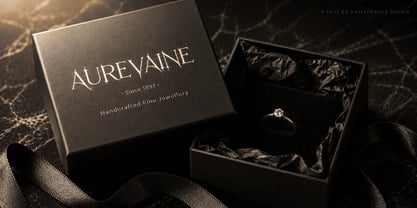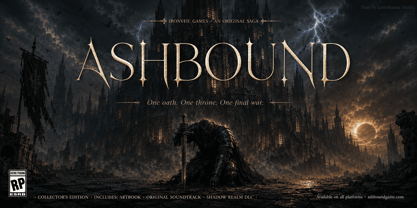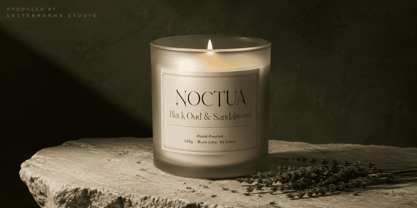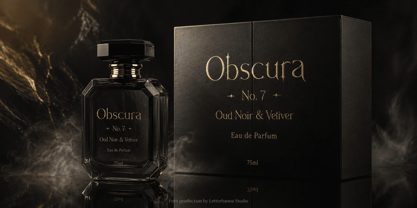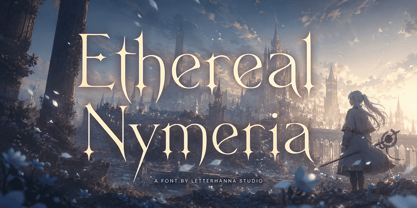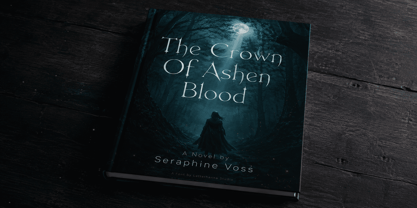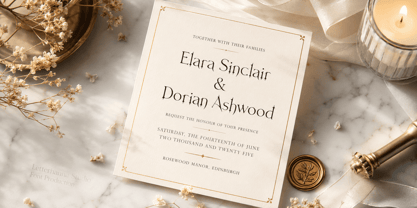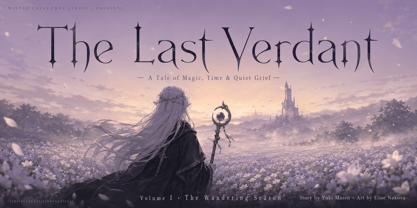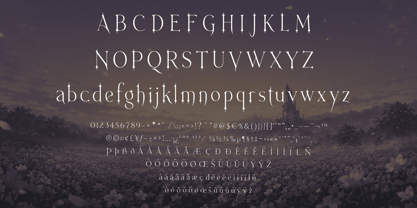
Ethereal Nymeria
by Letterhanna Studio
The Ethereal Nymeria Font Family was designed by Rinaldo Hasibuan and published by Letterhanna Studio. Ethereal Nymeria contains 1 styles. More about this family
What if a font could feel like magic?
Most fonts are functional. A few are beautiful. But every once in a while, a typeface arrives that feels like it was pulled from another world entirely — one where elegance has edges, and beauty carries a quiet danger.
That font is Ethereal Nymeria.
Born from the intersection of gothic architecture and old-world calligraphy, Ethereal Nymeria is a high-contrast serif typeface that refuses to be ordinary. Its razor-thin hairlines flow like silk threads, then erupt into bold, commanding strokes — a visual tension that creates presence the moment it hits the page. Star-burst terminals punctuate each letterform like tiny crowns, making even a single word feel ceremonial.
The name says it all. Ethereal — weightless, otherworldly, impossible to ignore. Nymeria — fierce, wild, unapologetically powerful. Together, they describe a font built for those who want their designs to feel like an event.
Ethereal Nymeria was crafted for brands, designers, and creators who understand that typography is never just letters — it's atmosphere. It's the first impression before a single word is read. Whether you're designing a luxury wedding suite, a high-end editorial layout, a fantasy book cover, or a brand identity that demands reverence, this font delivers the kind of gravitas that can't be faked.
Every curve was intentional. Every sharp spur was deliberate. Every hairline was drawn to whisper look closer.
This is not background typography. Ethereal Nymeria is the main character.
Designers: Rinaldo Hasibuan
Foundry: Letterhanna Studio
Letterhanna Studio is an independent type foundry from Yogyakarta, Indonesia, crafting original fonts since 2021. We specialize in expressive display typefaces and handwritten scripts — fonts with genuine personality and human warmth. With 100+ typefaces available. We serve designers and creators around the world. At Letterhanna, every letter is designed with purpose — because great typography tells a story before a single word is read.